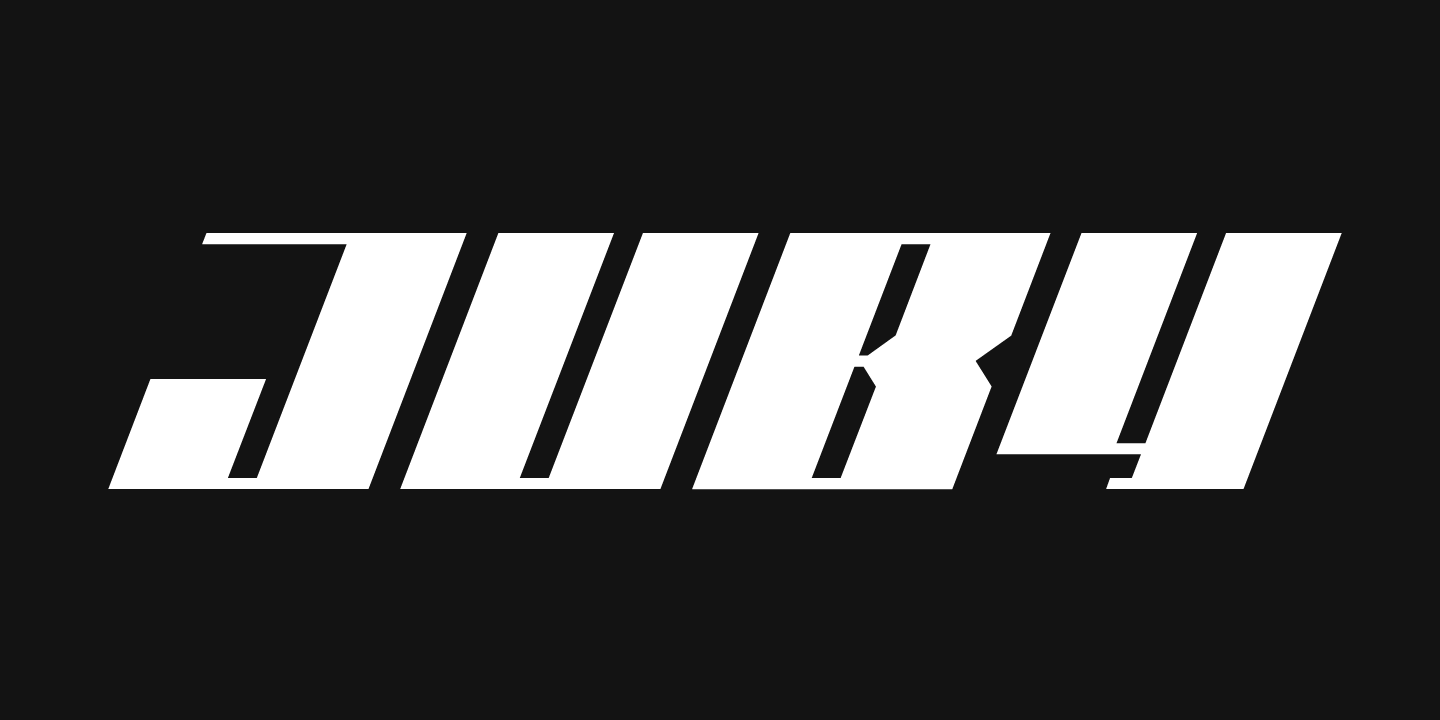
Juby Font is perfect for children's brand materials, playful toy packaging, joyful party invitations, cheerful educational resources, fun family entertainment, vibrant youth programs, happy celebration designs, and delightful childhood communications.
This cheerful sans-serif typeface is exciting because it captures the pure joy and innocent happiness of childhood through bouncy letterforms that embody playfulness, wonder, and the infectious enthusiasm that makes every day an adventure for young hearts.
The Juby Font family includes light, regular, medium, and bold weights with playful alternates, joy-inspired decorative elements, and celebration variants that enhance the happy, uplifting atmosphere of any child-focused design project.
Joyful and playful, Juby Font Free Download brings the pure happiness and boundless energy of childhood to contemporary typography through authentic youthful character. This delightful font embodies the wonder and excitement that defines childhood experiences and the understanding that learning happens best when it's fun and engaging, making it perfect for educational brands and family entertainment companies that prioritize joy in child development. Its bouncy character reflects the natural enthusiasm and curiosity that makes children such effective learners and the spontaneous happiness that creates lasting childhood memories, resonating with parents and educators who appreciate approaches that honor childhood's natural joy. Perfect for toy companies and children's education providers, this font ensures your message carries the childhood authenticity and joyful energy that young audiences and their families seek. Whether used for educational games or family entertainment materials, Juby Font Free Download delivers the playful credibility and childhood happiness that connects with people who understand that the best childhood experiences combine learning with laughter and create memories that last a lifetime through genuine fun and authentic joy.